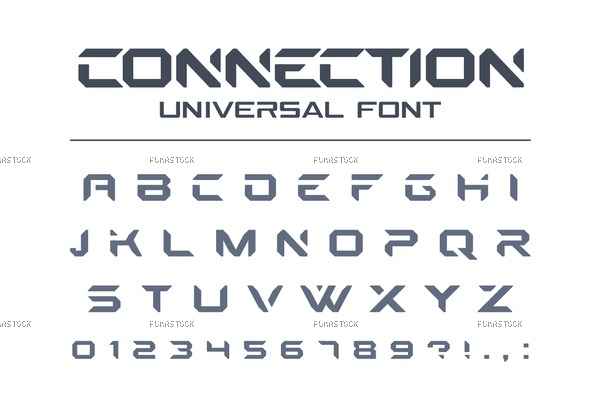
Technology connect universal font. Geometric, aggressive sport, futuristic, future techno alphabet. Letters and numbers for military, electric industry logo design. Modern minimalistic vector typeface